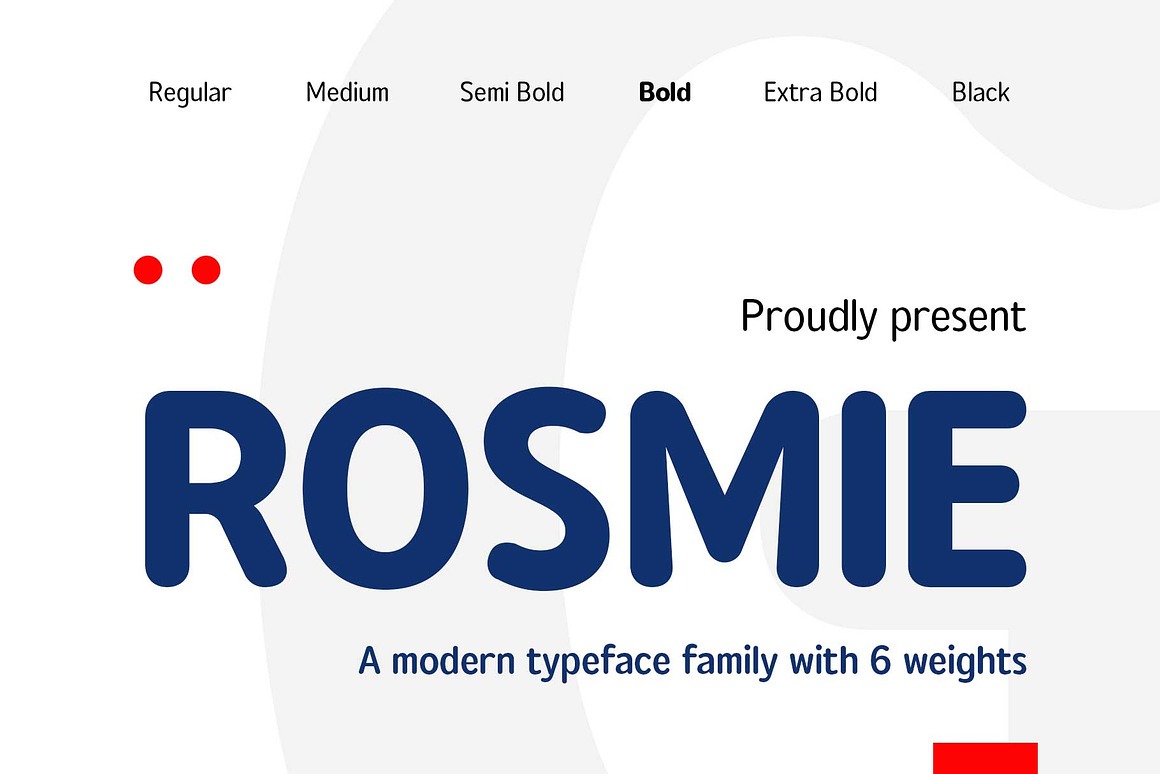
Rosmie Font
About Rosmie
Rosmie is a rounded sans-serif family inspired by classic typefaces from the 1970s. It is thoughtfully designed not only as a display font but also with readability in mind, making it suitable for body text as well.